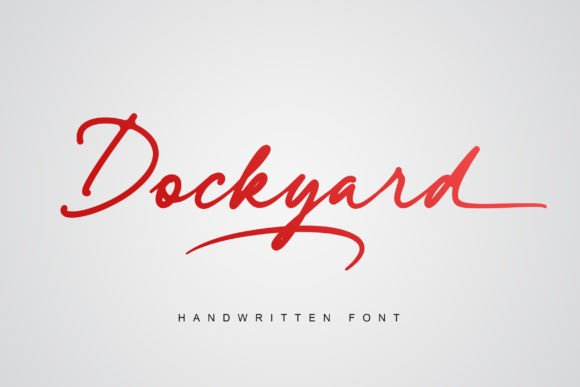
Embark on a visual odyssey with Dockyard Font, a script font that dances with elegance and grace. Its gentle curves and beautiful flow capture the essence of romance and charm, making it the perfect choice for love-filled occasions.
With Dockyard Font, your wedding videos will blossom into enchanting visual masterpieces that transport viewers into a realm of timeless beauty. Each letter dances across the screen, carrying tales of love and happiness, leaving an indelible mark on the hearts of all who behold it.
Whether you're crafting logos that exude sophistication, designing wedding invitations that whisper sweet promises, or creating stationery that radiates joy, Dockyard Font is your trusty companion. Its versatility knows no bounds, lending its charm to photography, social media posts, product packaging, greeting cards, and more.
Dockyard Font is an open door to a world of creative possibilities. Its PUA encoding grants you effortless access to a treasure trove of glyphs and swashes, empowering you to unleash your imagination and paint a visual symphony that captivates and mesmerizes.
Join the legion of creatives who have succumbed to the allure of Dockyard Font. Let its gentle touch guide your artistic vision, transforming ordinary designs into extraordinary works of art. Embrace the beauty of Dockyard Font and embark on a journey where creativity flourishes and love blossoms.